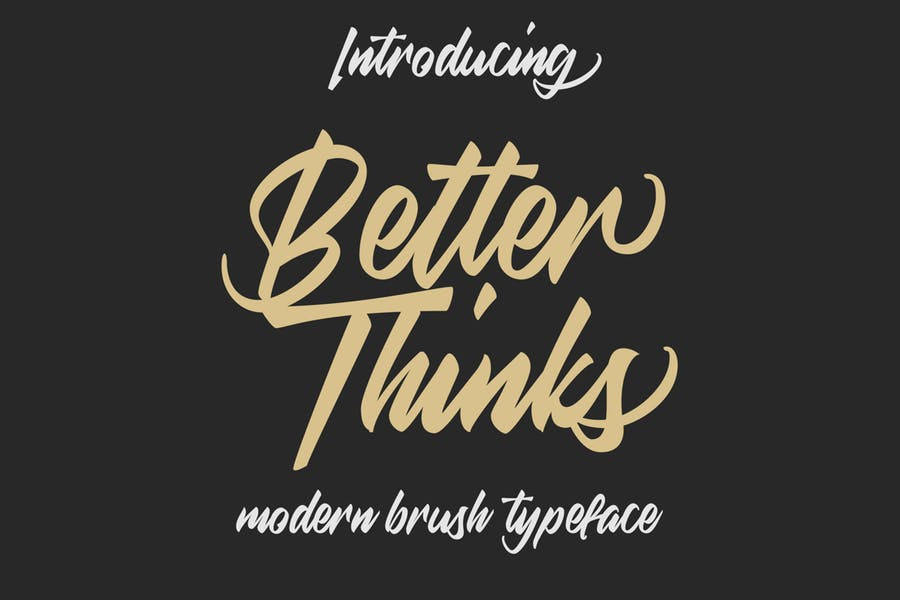
Better Thinks Typeface Font
Better Thinks Typeface Font is perfect for innovative consulting firms, creative thinking workshops, brainstorming facilitation services, design thinking organizations, strategic innovation companies, and intellectual improvement platforms. Its thoughtful character makes it ideal for thought leadership brands, creative problem-solving services, innovation labs, strategic planning consultancies, cognitive enhancement programs, and any project requiring intellectual advancement with creative thinking excellence and innovative mindset appeal.
This font is exciting because it embodies the transformative power of improved thinking and creative problem-solving while delivering exceptional functionality for organizations dedicated to enhancing human intellectual capacity and innovative thinking processes. The thoughtfully crafted letterforms reflect the clarity and precision that comes from better thinking, creating typography that inspires cognitive excellence and resonates with audiences seeking intellectual growth and creative advancement.
The Better Thinks Typeface Font family typically includes Light, Regular, Medium, and Bold weights with innovative alternates, thinking-inspired ligatures, and intellectual elements that enhance its thoughtful personality. This comprehensive collection enables thinking professionals to create authoritative brand systems that maintain intellectual credibility while offering flexibility for various innovation applications requiring both cognitive authority and contemporary thought leadership positioning.
Whether you're developing identity systems for innovation consulting firms, creating materials for creative thinking workshops, or designing platforms for intellectual enhancement services, Better Thinks Typeface Font Free Download delivers the intellectual sophistication and innovative appeal that connects with audiences seeking cognitive improvement and creative excellence. Its thoughtful presence ensures memorable brand recognition across digital platforms and print materials, making it perfect for websites, mobile applications, and innovation campaigns that celebrate better thinking, creative problem-solving, and the transformative power of enhanced intellectual capacity with contemporary innovation standards and authentic thinking excellence.